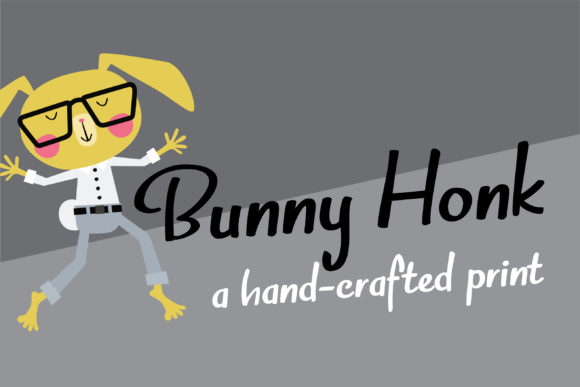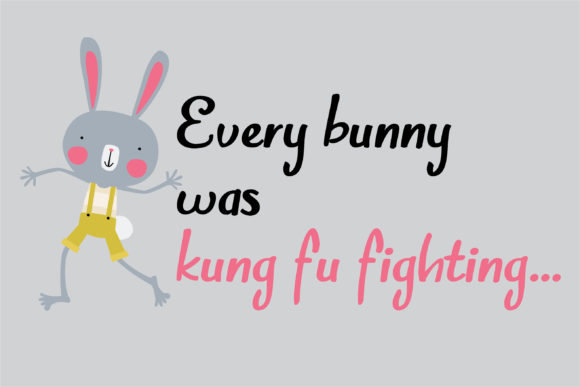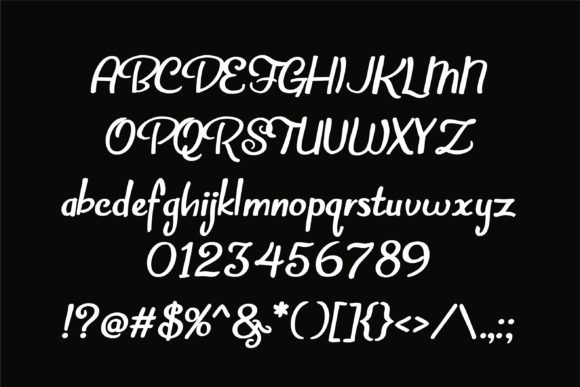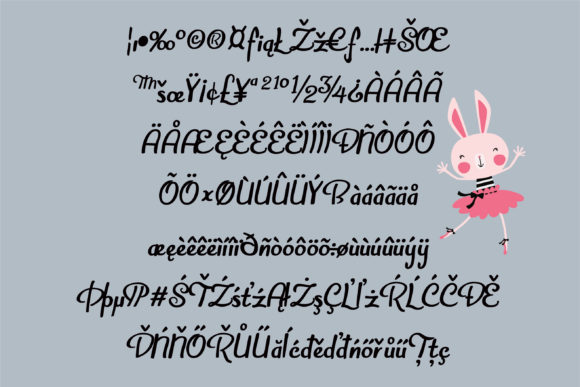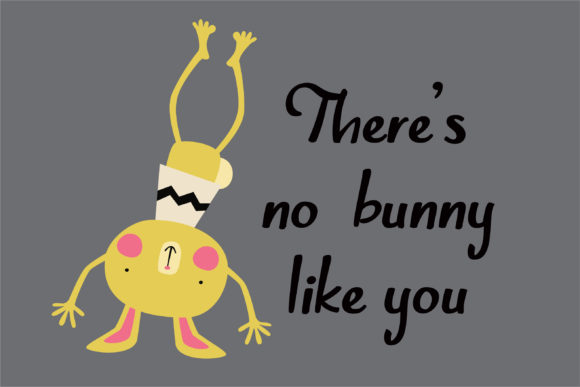
Bunny Honk Font
About Bunny Honk Font
Bunny Honk is an adorable script font that has a retro feel to it. Its simple, yet cute, style makes it perfect for use in many design projects.